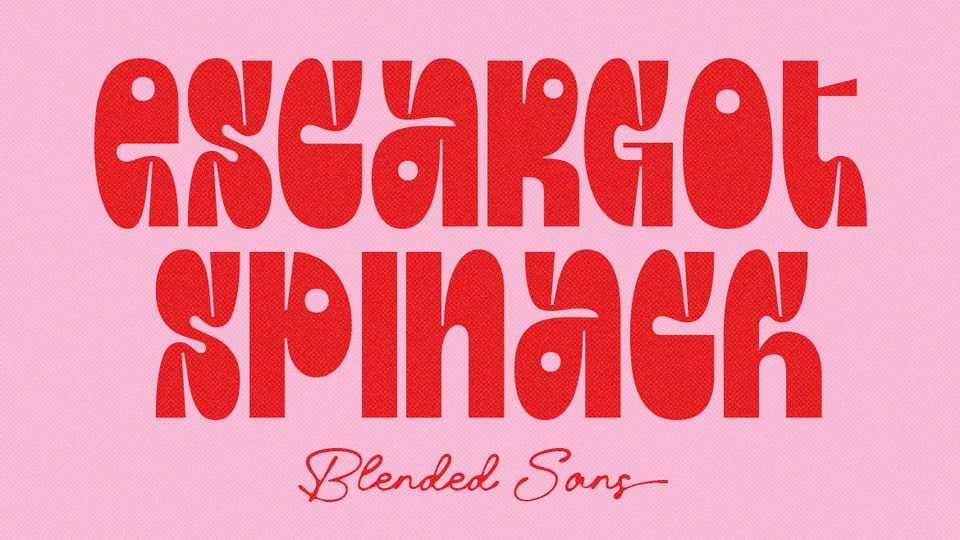
Download Escargot Spinach font, a unique display typeface with a playful and groovy vibe, combining uppercase and lowercase letterforms for a memorable and versatile look.
Designer: Prioritype Co